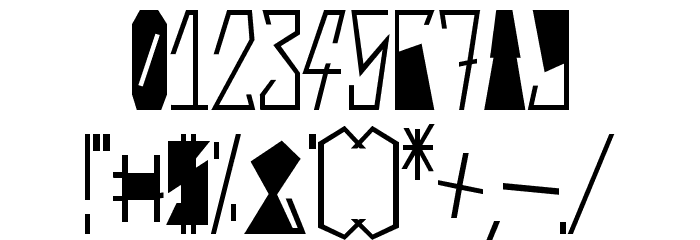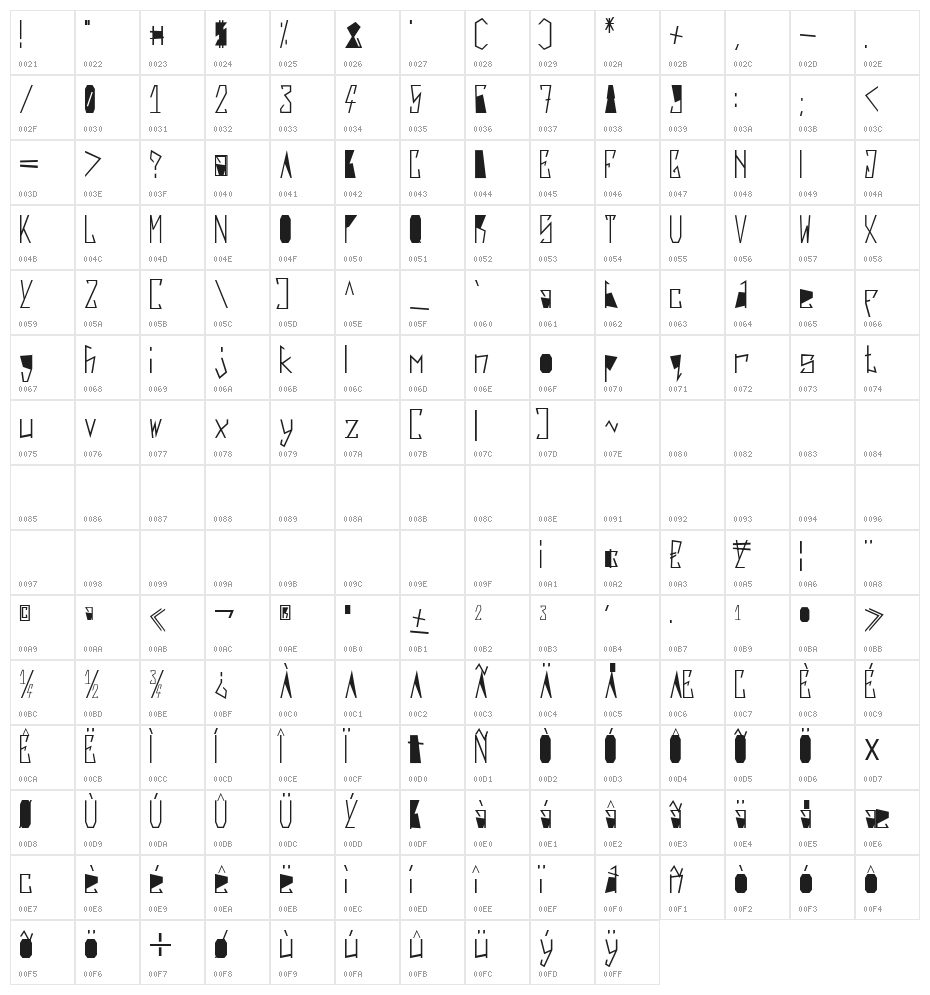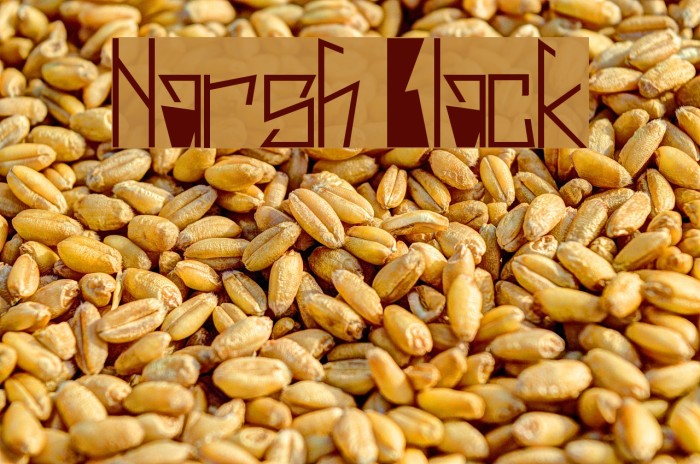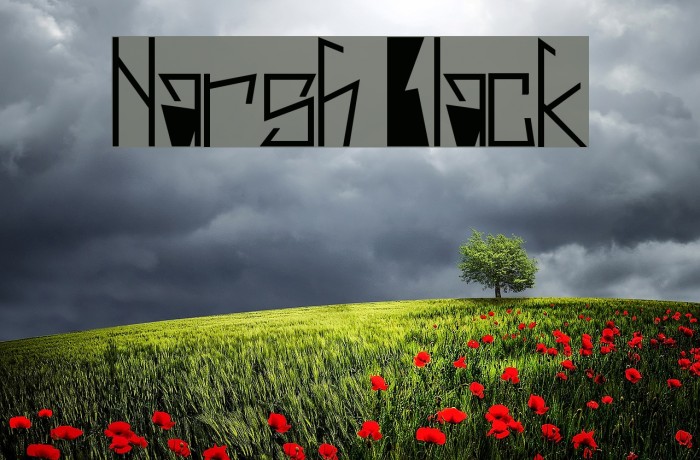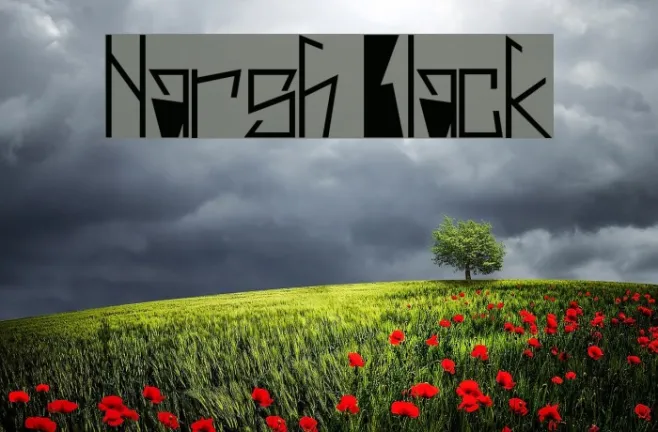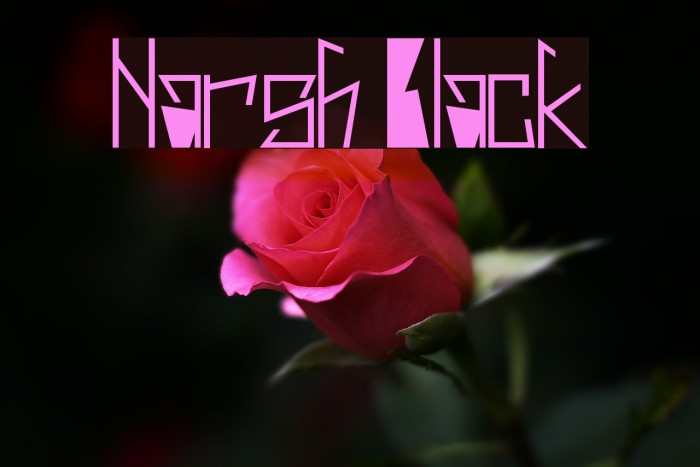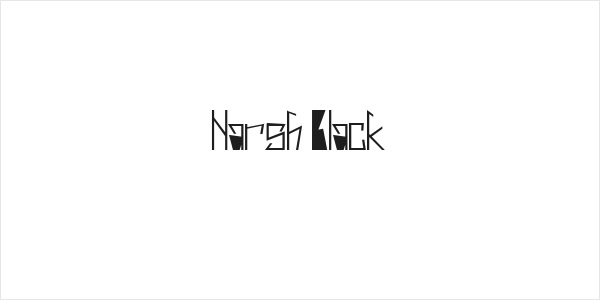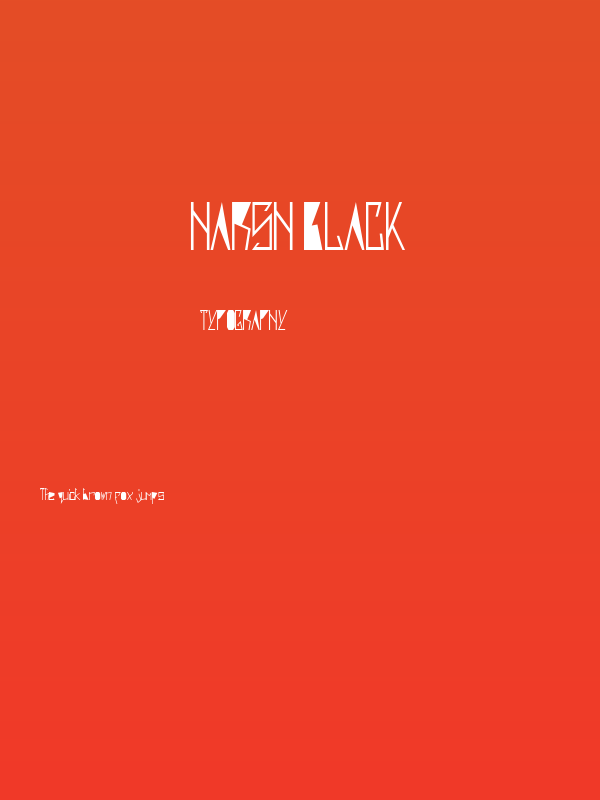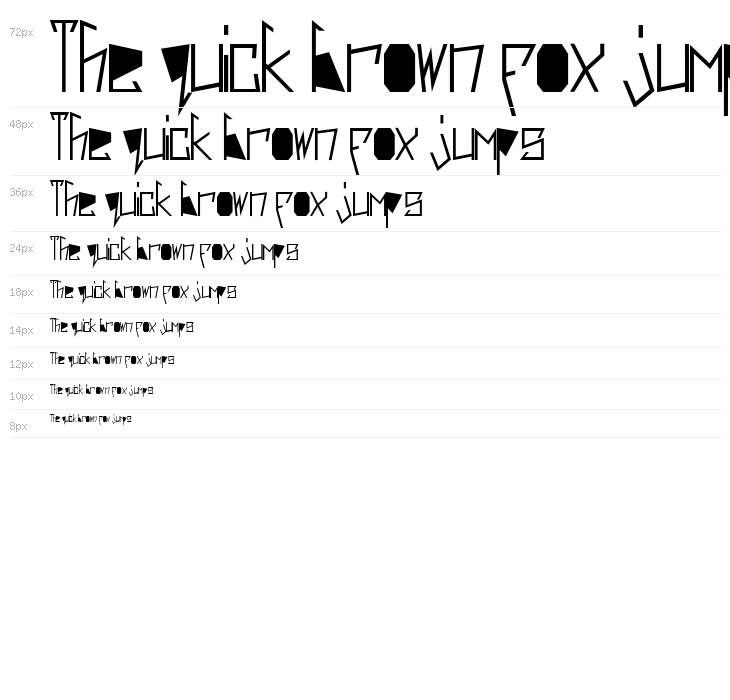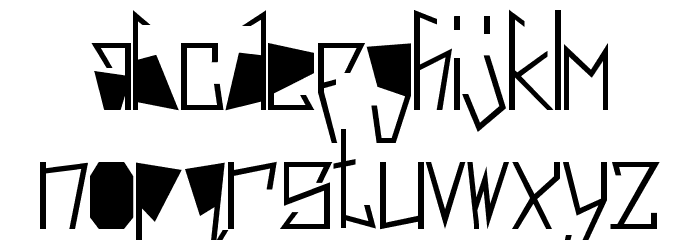
Harsh Black Font
Harsh Black Description
This font features a highly geometric and angular design, characterized by sharp edges and bold, block-like structures. The uppercase letters exhibit a strong presence with their thick strokes and unique, abstract forms that create a sense of modernity and edginess. The lowercase letters maintain this angular aesthetic, offering a cohesive look across the typeface. Numbers and special characters follow the same design principles, ensuring consistency throughout. The overall style is striking and unconventional, making it ideal for projects that require a bold statement.
| Overall Style | Modern, Edgy |
| Proposed Projects | Ideal for modern branding, album covers, poster designs, and any project needing a bold, standout typeface. |